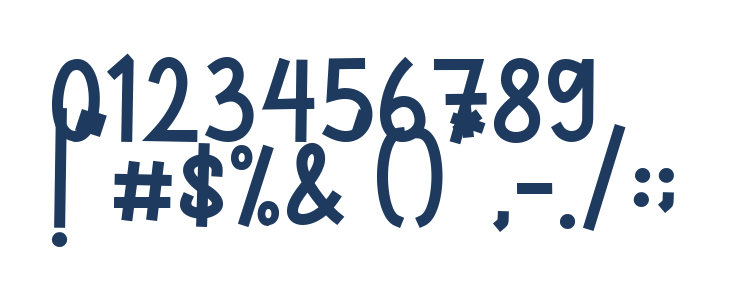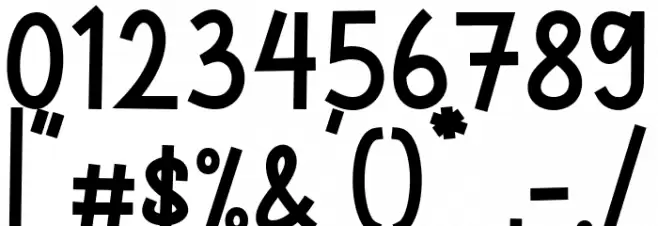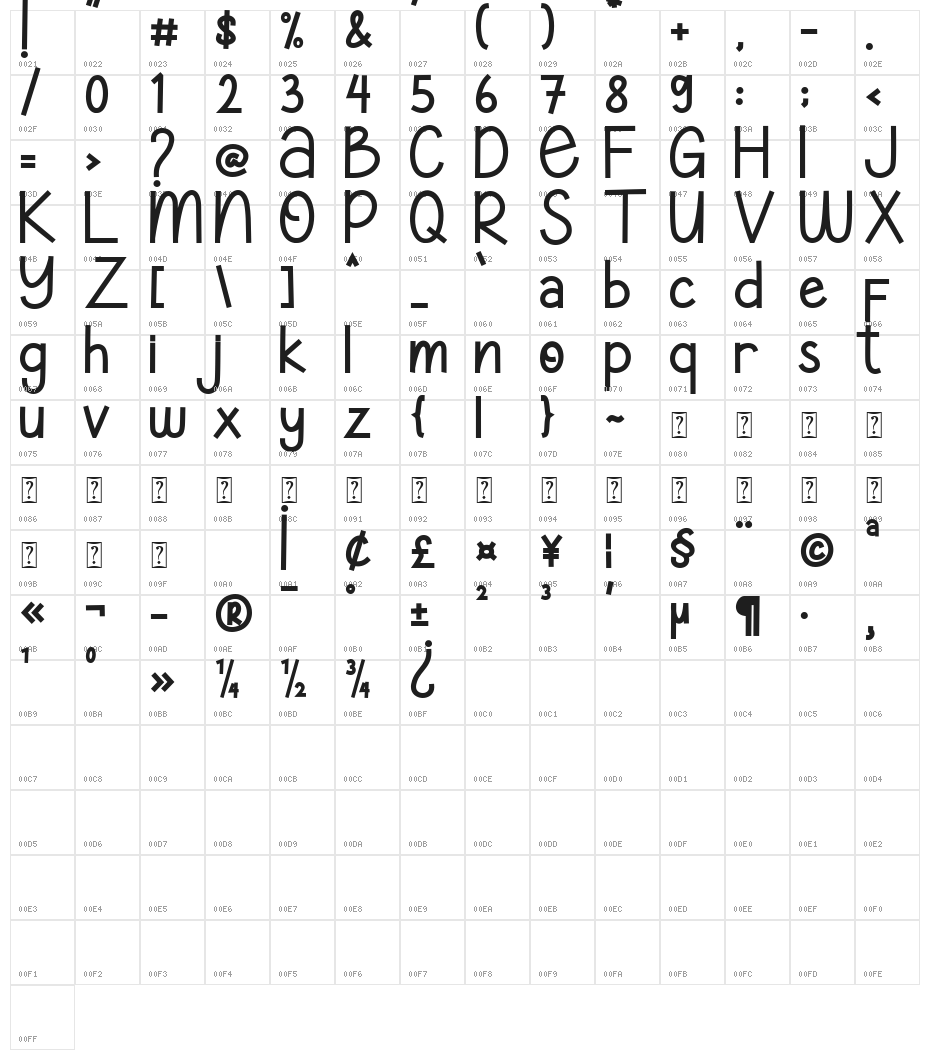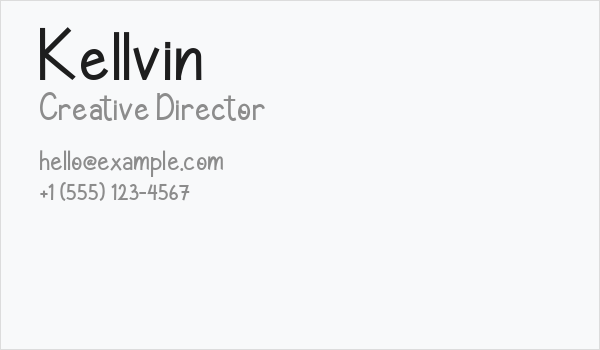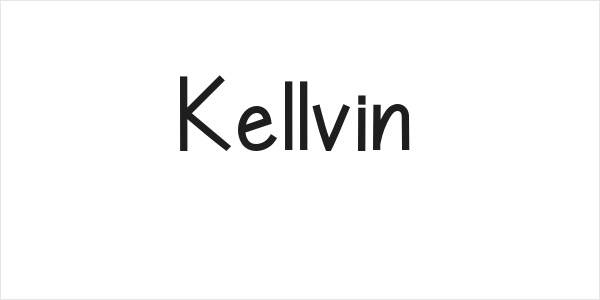
Kellvin Font
Kellvin Description
This playful and quirky font features a unique blend of geometric and organic shapes, giving it a whimsical yet structured appearance. The uppercase letters are tall and narrow with rounded edges, while the lowercase letters maintain a consistent height, adding to the font's cohesive look. The numerals are bold and slightly oversized, ensuring they stand out. Special characters are creatively designed, adding to the font's charm. The overall style is casual and friendly, making it suitable for a variety of creative projects.
A playful, quirky font with geometric and organic shapes from Regular fonts.
- Proposed Projects: Ideal for children's books, playful branding, greeting cards, and creative posters.
- Overall Style: Playful, Quirky
- Use Case: Headlines, Logos, Creative projects